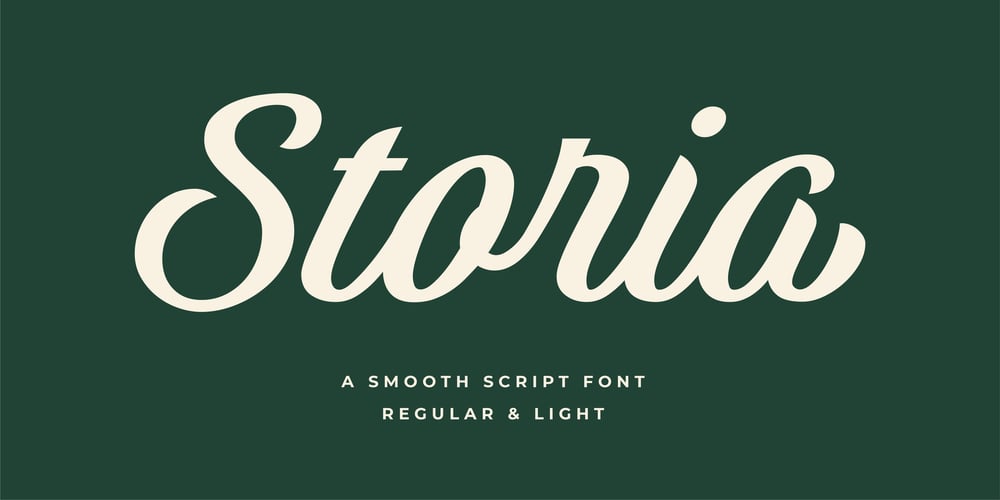
Storia
Storia font
Storia Font Family was designed by Annas Alam Yahya and published by Letteralle. Storia contains 2 styles and family package options. Introducing Storia!Storia is a contemporary script font inspired by a vintage script style. Storia has two weight options (regular & Light). Storia also include multilingual support. Storia Perfect for branding, merch, ads, social media, packaging, and many more.Thank You.